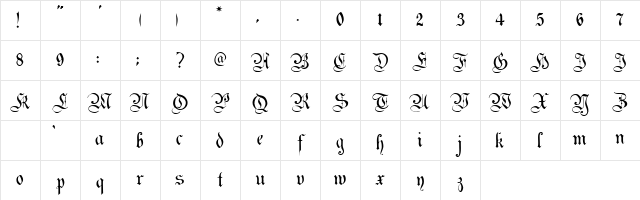
Magdeburg!" Regular Free Font
Magdeburg!" Regular
Design Context for Magdeburg!"
Magdeburg!" is a composed and adaptable typeface that performs quietly and consistently across a wide range of design contexts.